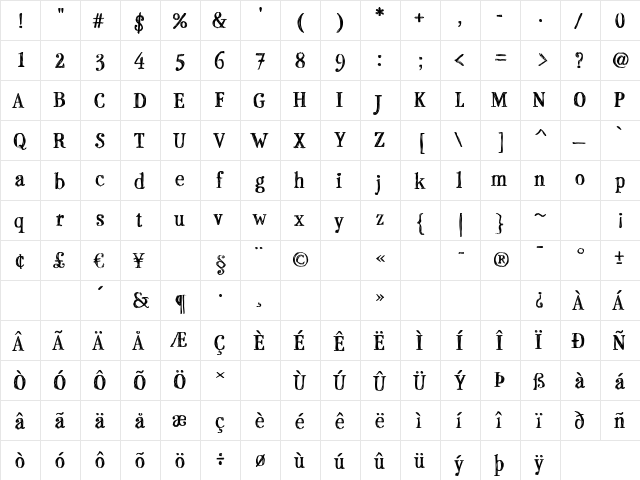
P22StanyanBold Regular
Design Context for P22StanyanBold Typeface
P22StanyanBold offers clean, dependable letterforms without strong stylistic allegiance, making it a practical choice for designers who need flexibility. Its bold stroke weight gives it real presence on the page.